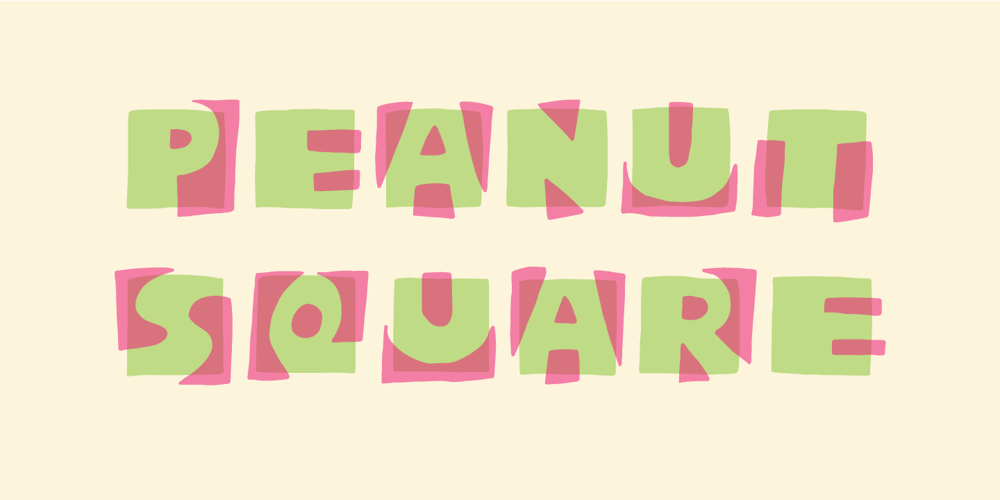
Peanut Square Layer Font Family was designed by Jakob Fischer and published by PizzaDude.dk. Peanut Square Layer contains 2 styles and family package options. This is a font that will fit in the “hard to read section” because it may not be super legible at first sight – that is because of the negative space. But when you combine the two layers (Layer and Box) the letter suddenly appears very legible!Play around with your favourite colour palette while adjusting the transparency in order for the colours to blend, giving a really nice handcrafted look!You have 4 different versions of each letter to play around with and of course there is multilingual support!